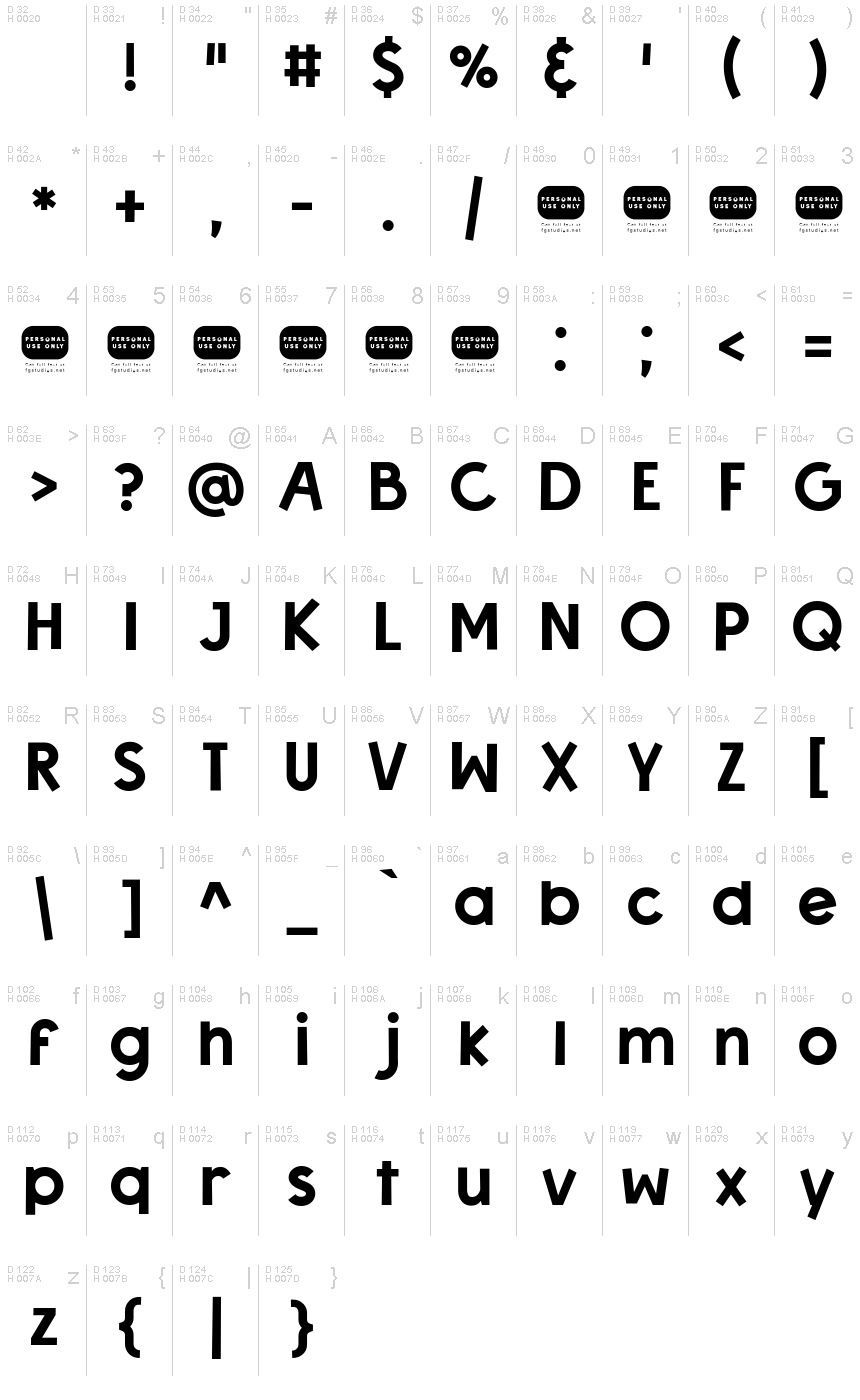
Bella
Bella, a striking display font designed by FG Studios, commands attention with its bold and confident presence. The clean, geometric letterforms exude a sense of modern sophistication, making it an impactful choice for headlines, branding, and other high-impact design applications. Bella's sharp edges and distinct angles lend it a strong, authoritative aesthetic, seamlessly transitioning from digital to print media.
This font's versatility allows it to shine in a variety of contexts, from editorial layouts to packaging design, where its eye-catching character can effectively capture the viewer's attention and convey a sense of a brand's unique identity.